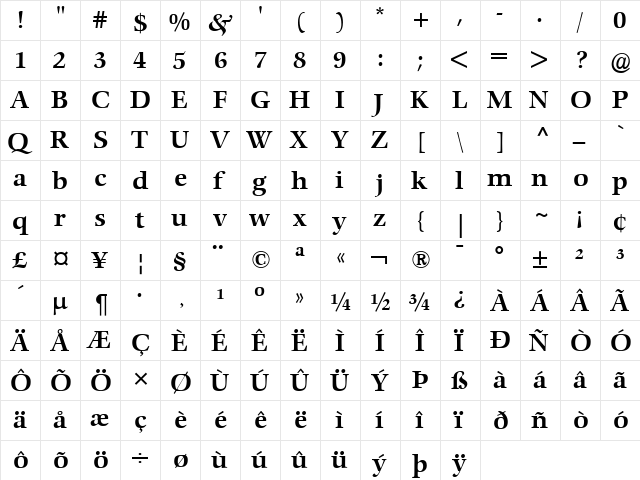
Comenius Antiqua Bold Font Preview
Comenius Antiqua Bold
Comenius Antiqua Bold Font Details
Design Context for Comenius Antiqua Typeface
Comenius Antiqua is a composed and adaptable typeface that performs quietly and consistently across a wide range of design contexts. The heavy weight commands attention and anchors typographic hierarchies.